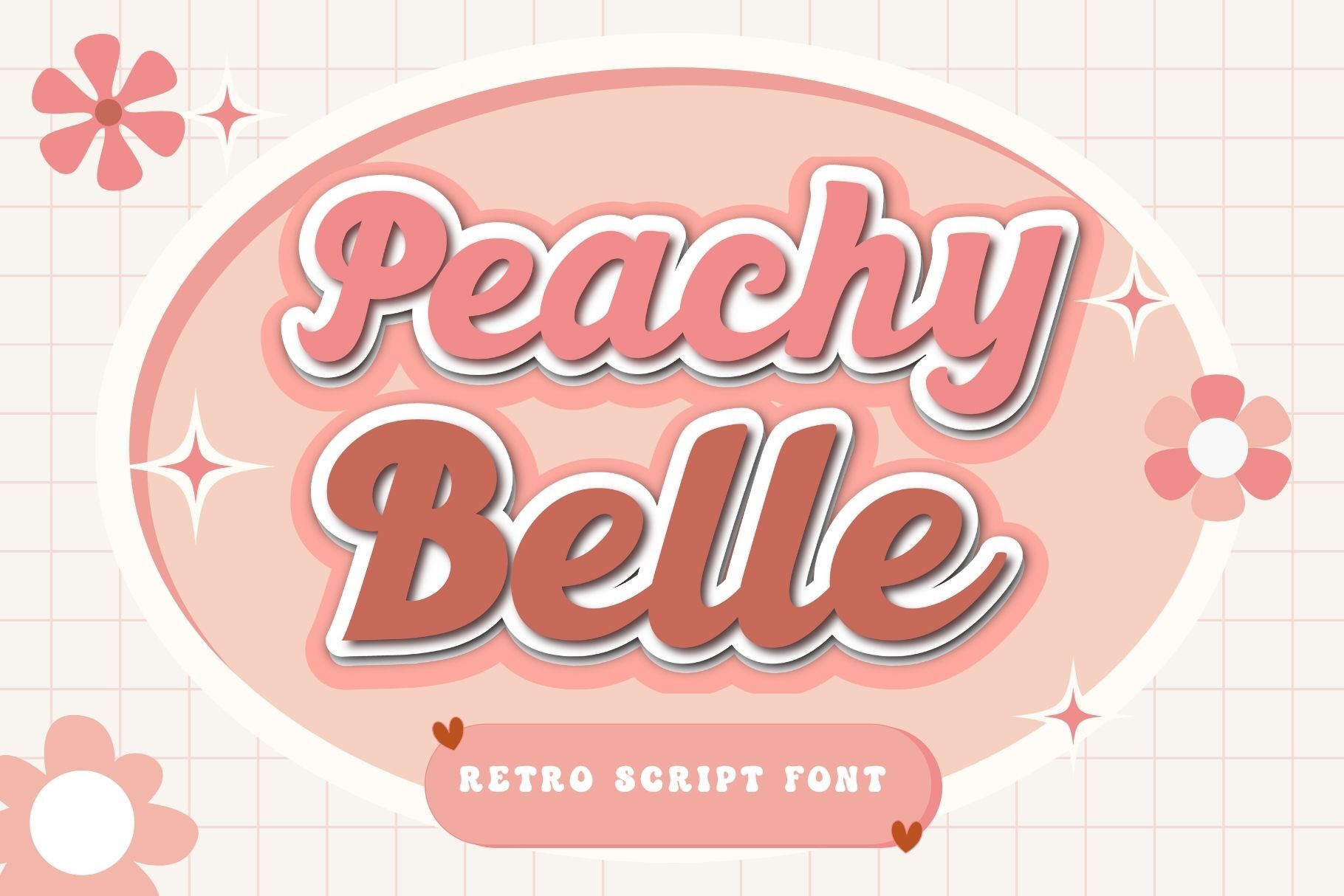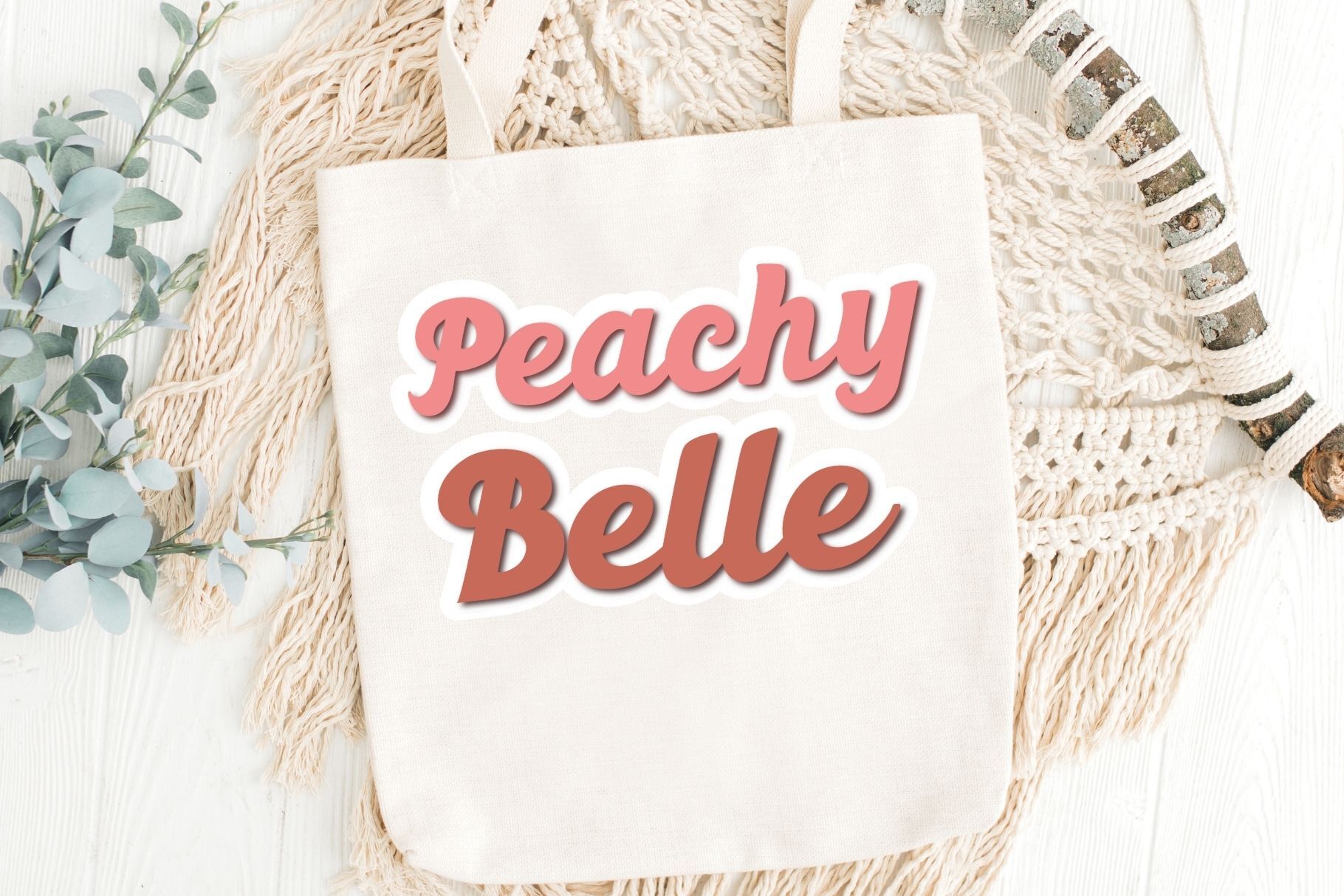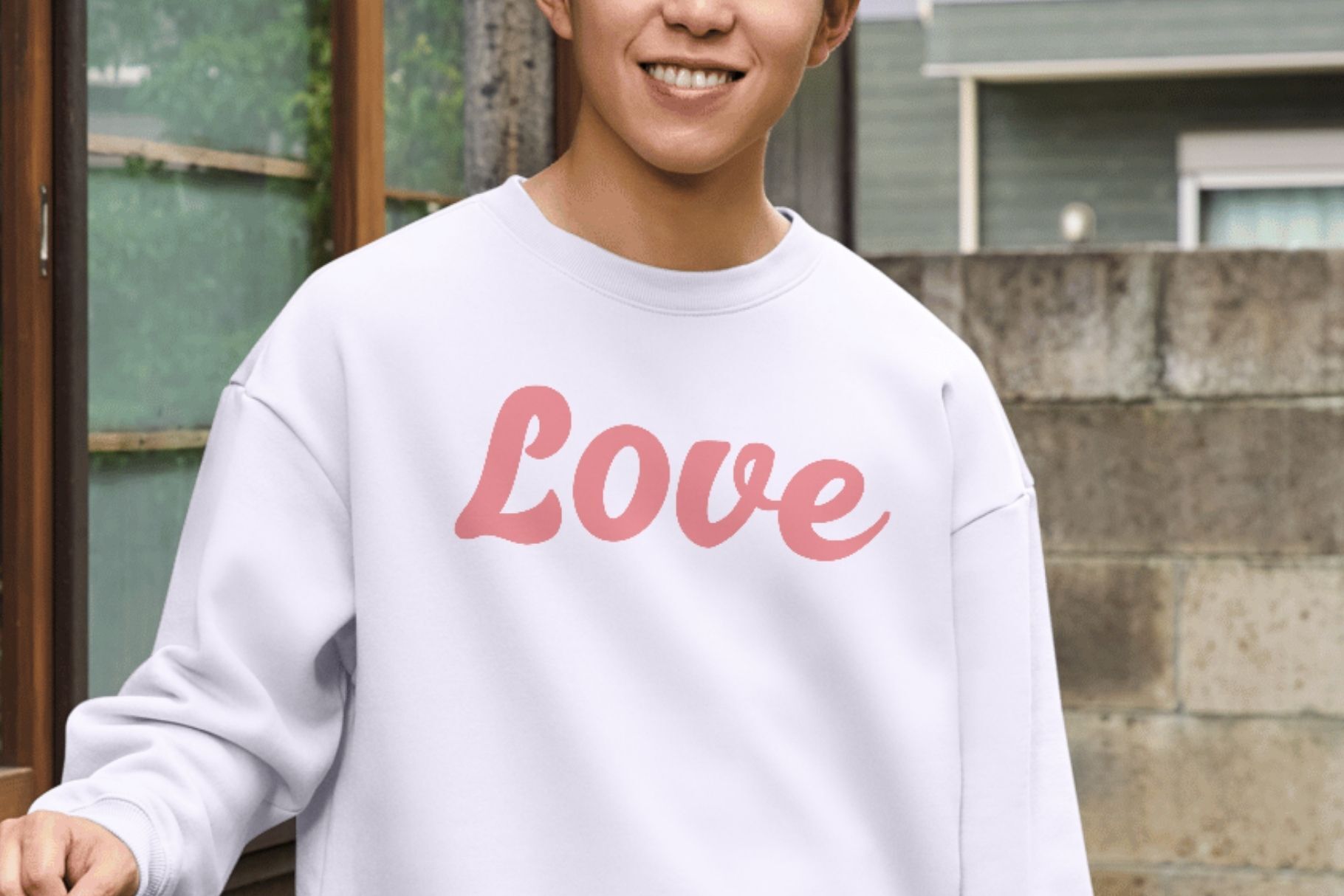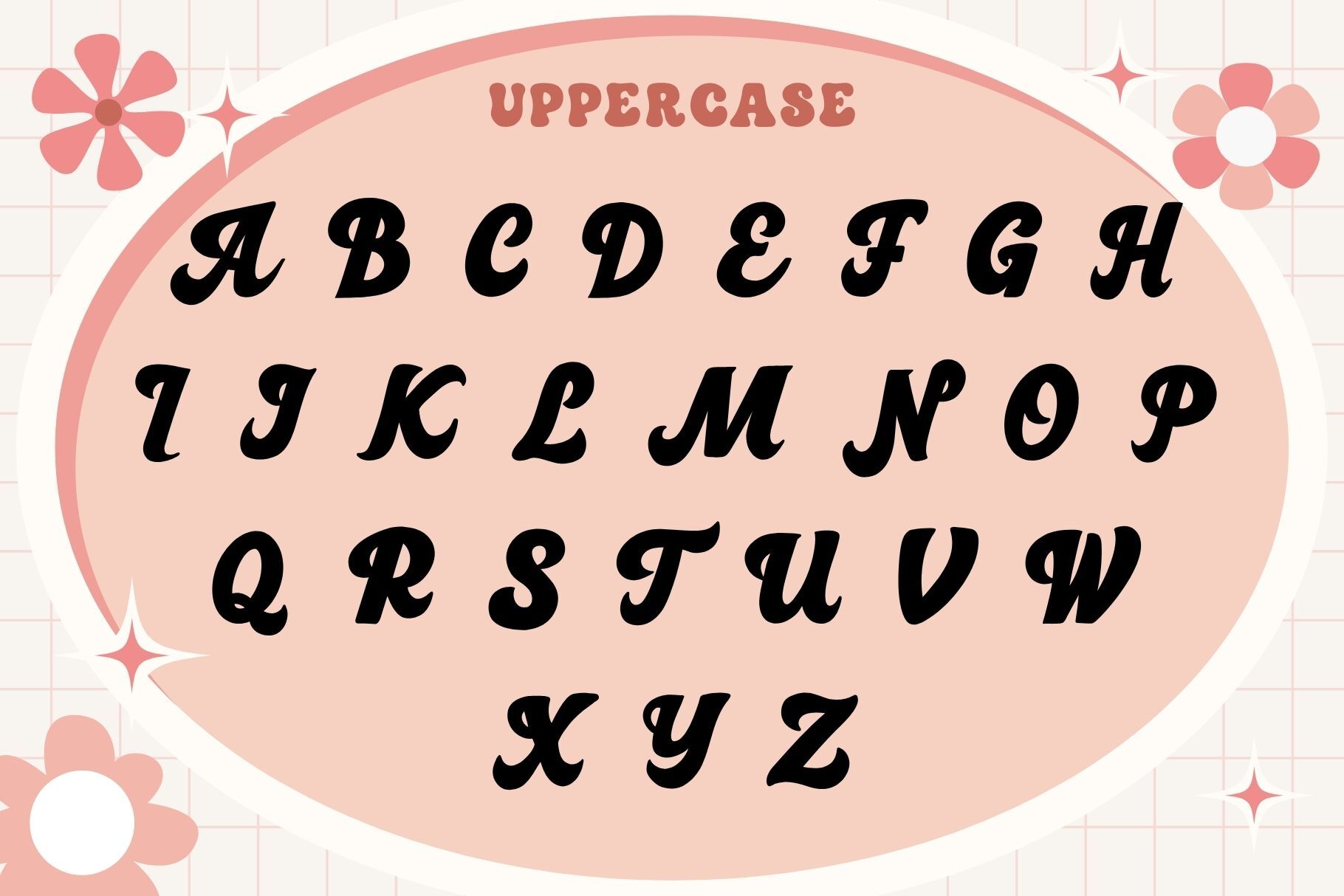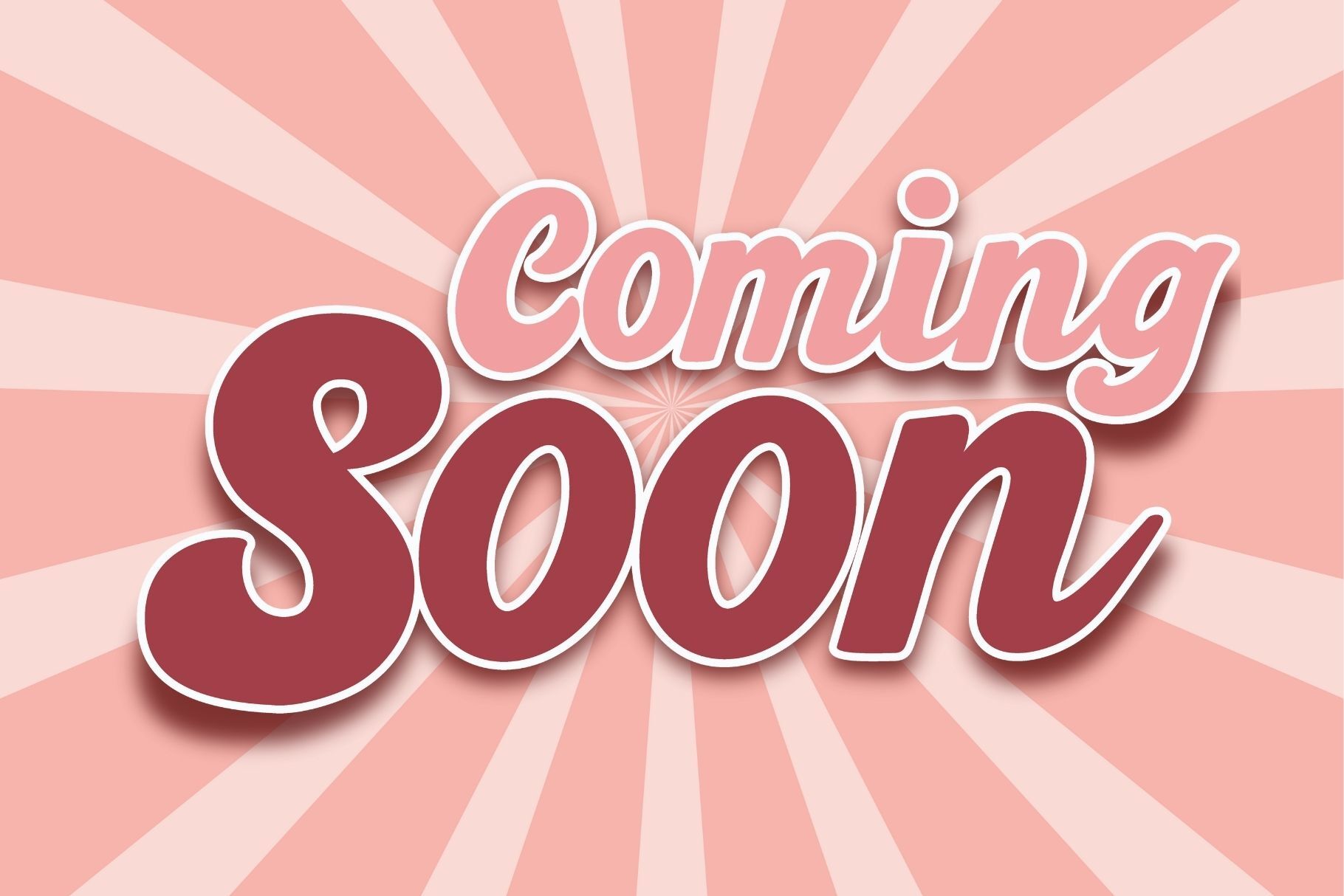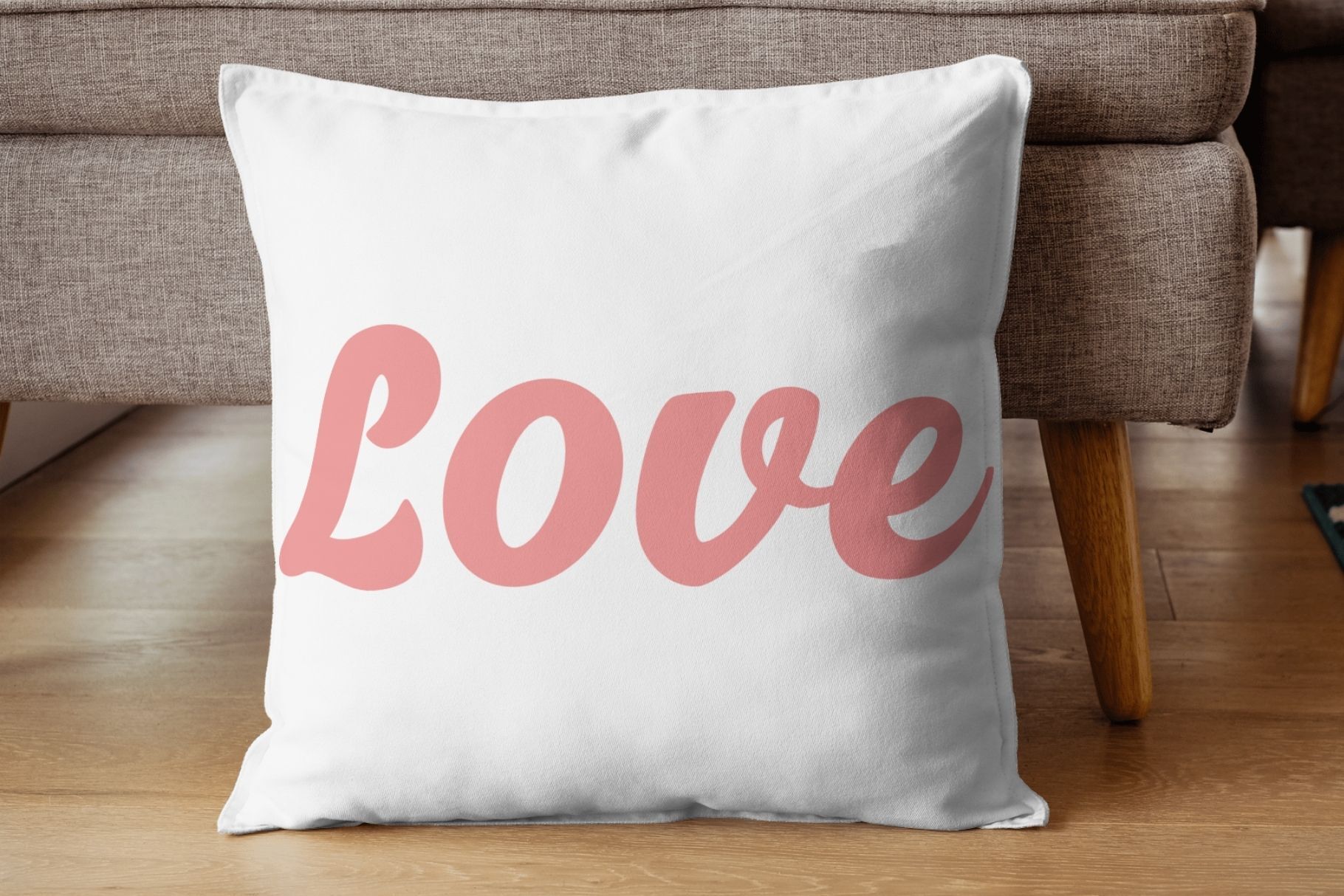
Peachy Belle - Retro Script Font
Peachy Belle is a playful retro script font with smooth curves and a soft, feminine vibe. Inspired by the 70s aesthetic, this font brings charm and personality to your designs — perfect for wedding invitations, logos, branding, apparel, quotes, and more. With its bouncy letterforms and delightful flow, Peachy Belle adds a sweet and nostalgic touch to any project. Whether you're designing for Cricut crafts, t-shirts, mugs, social media graphics, or vintage-inspired branding, this font will help your words dance with joy.